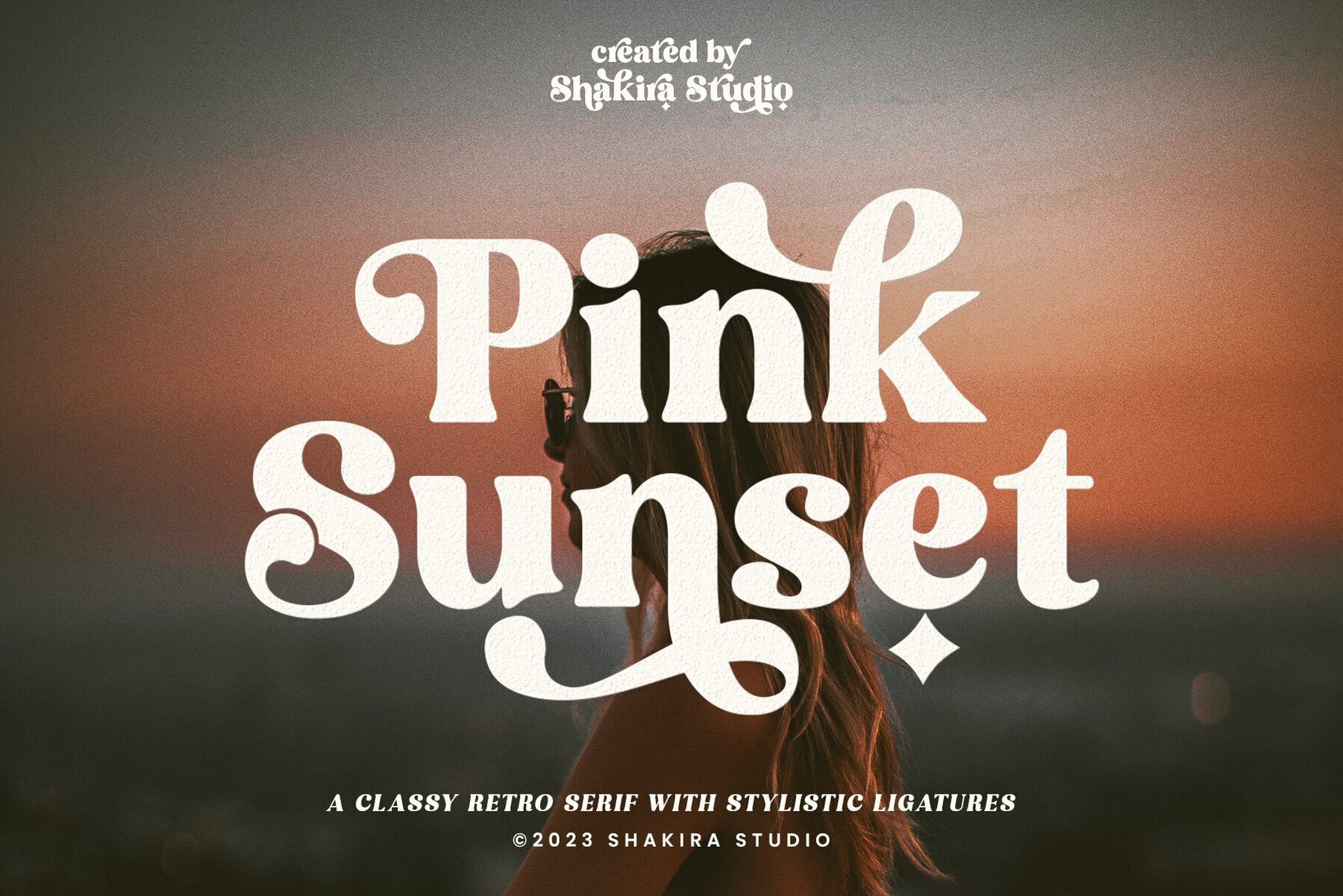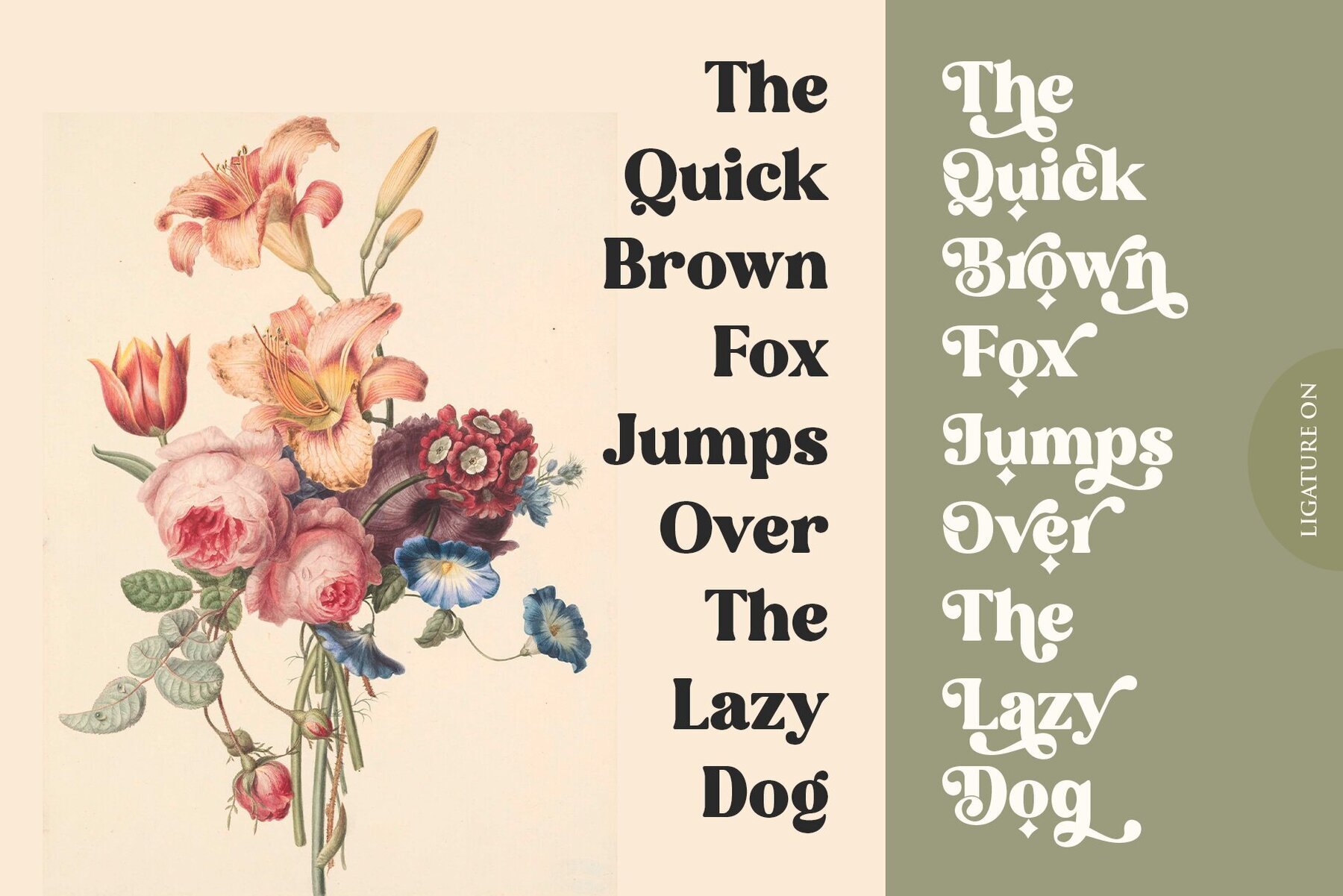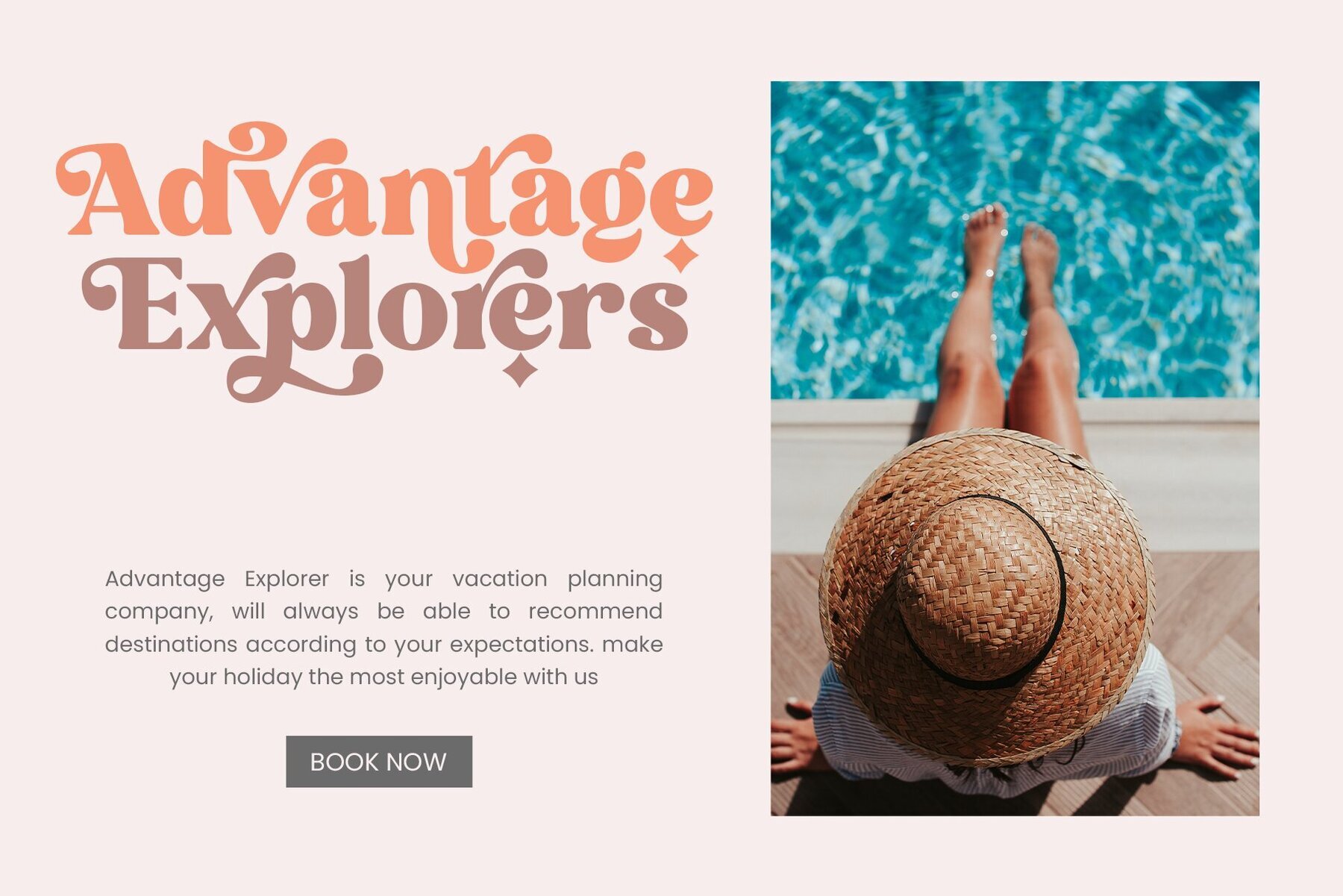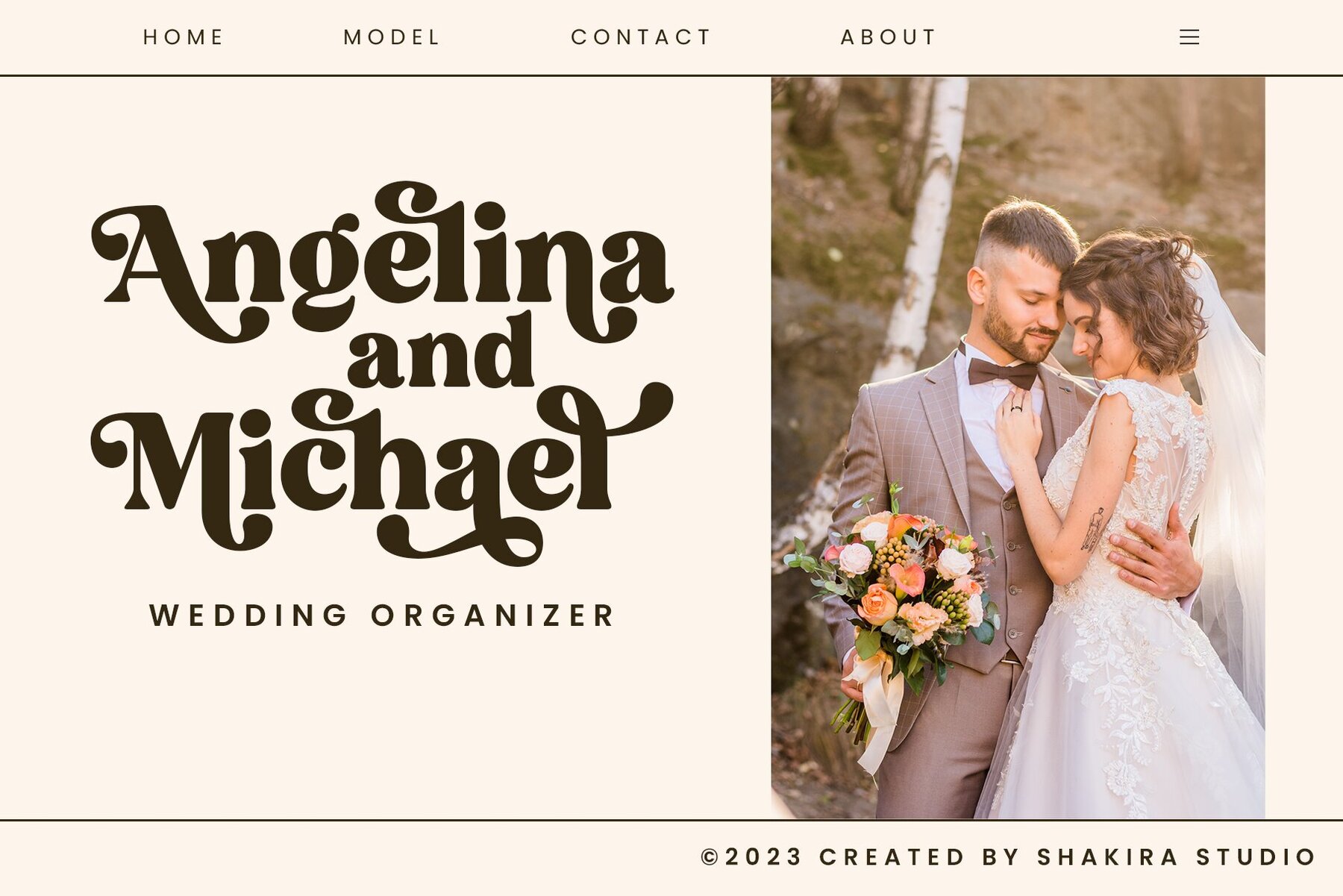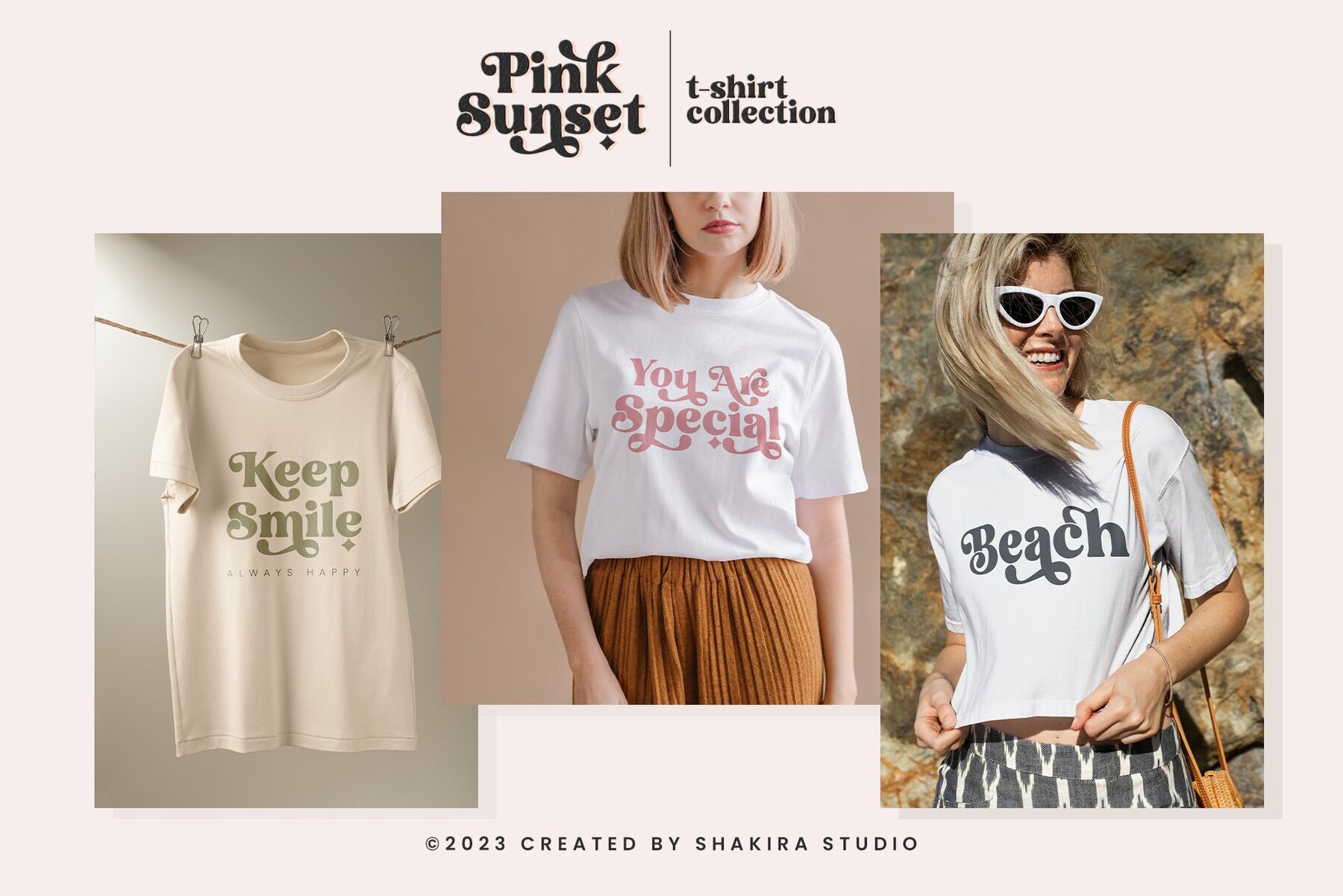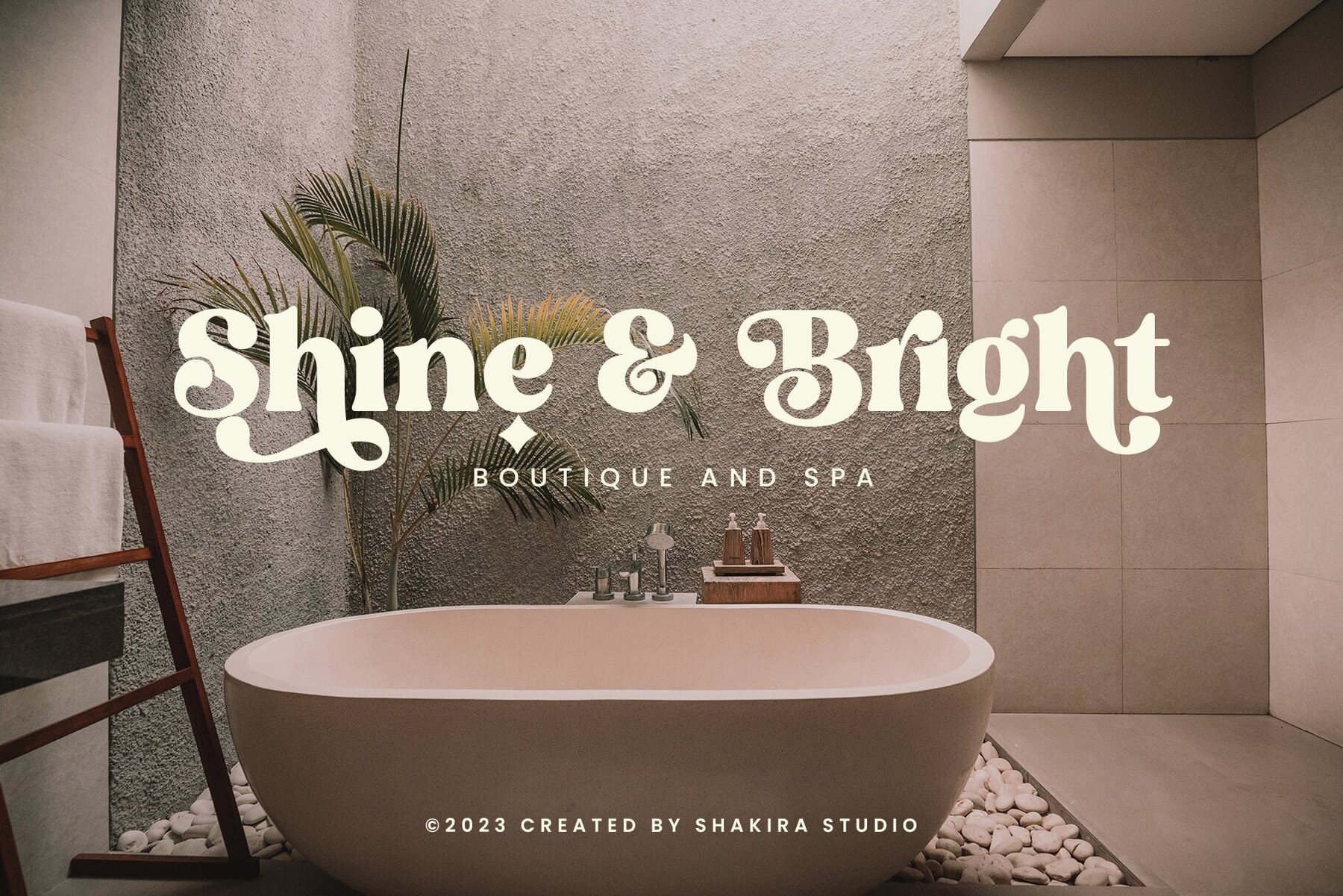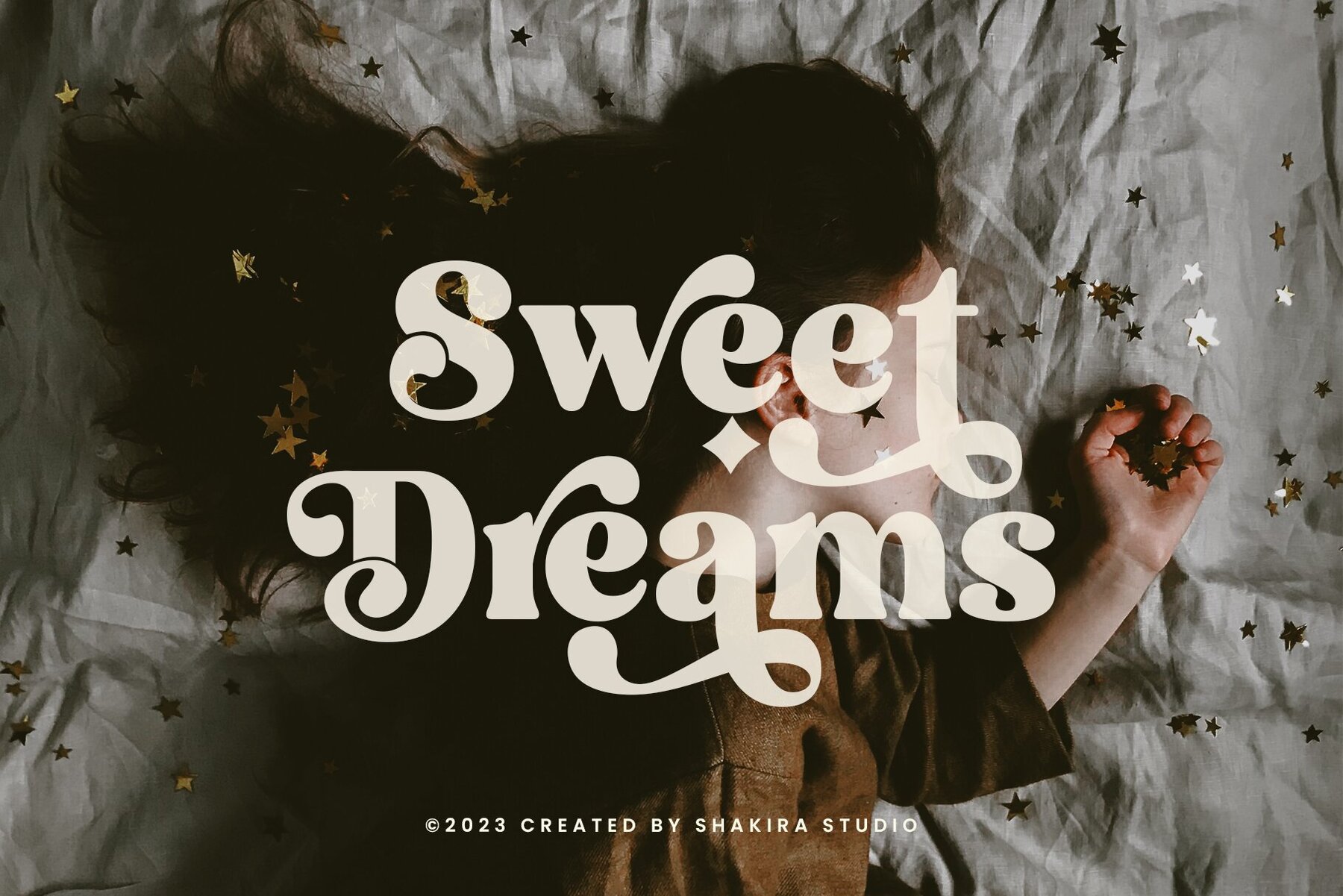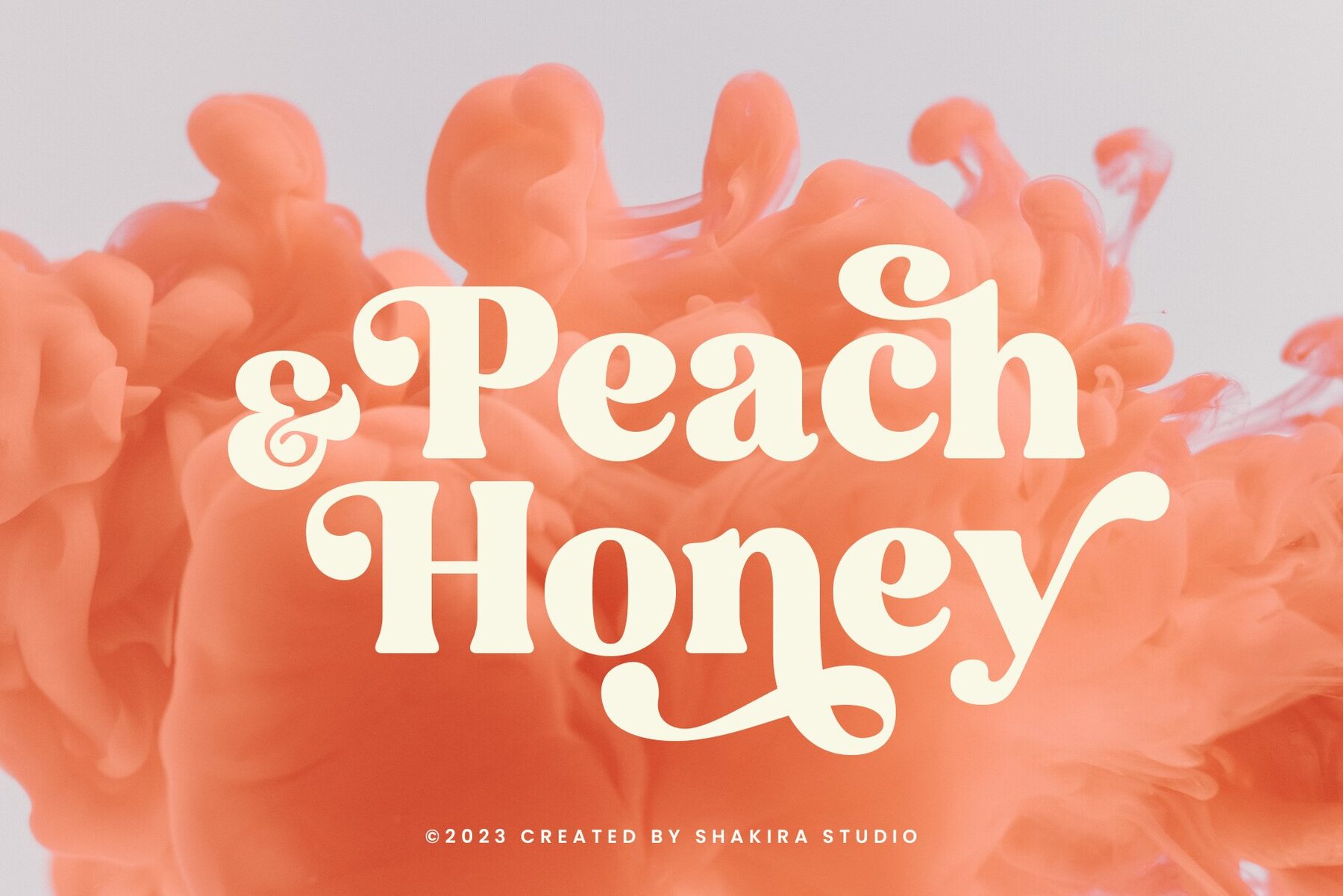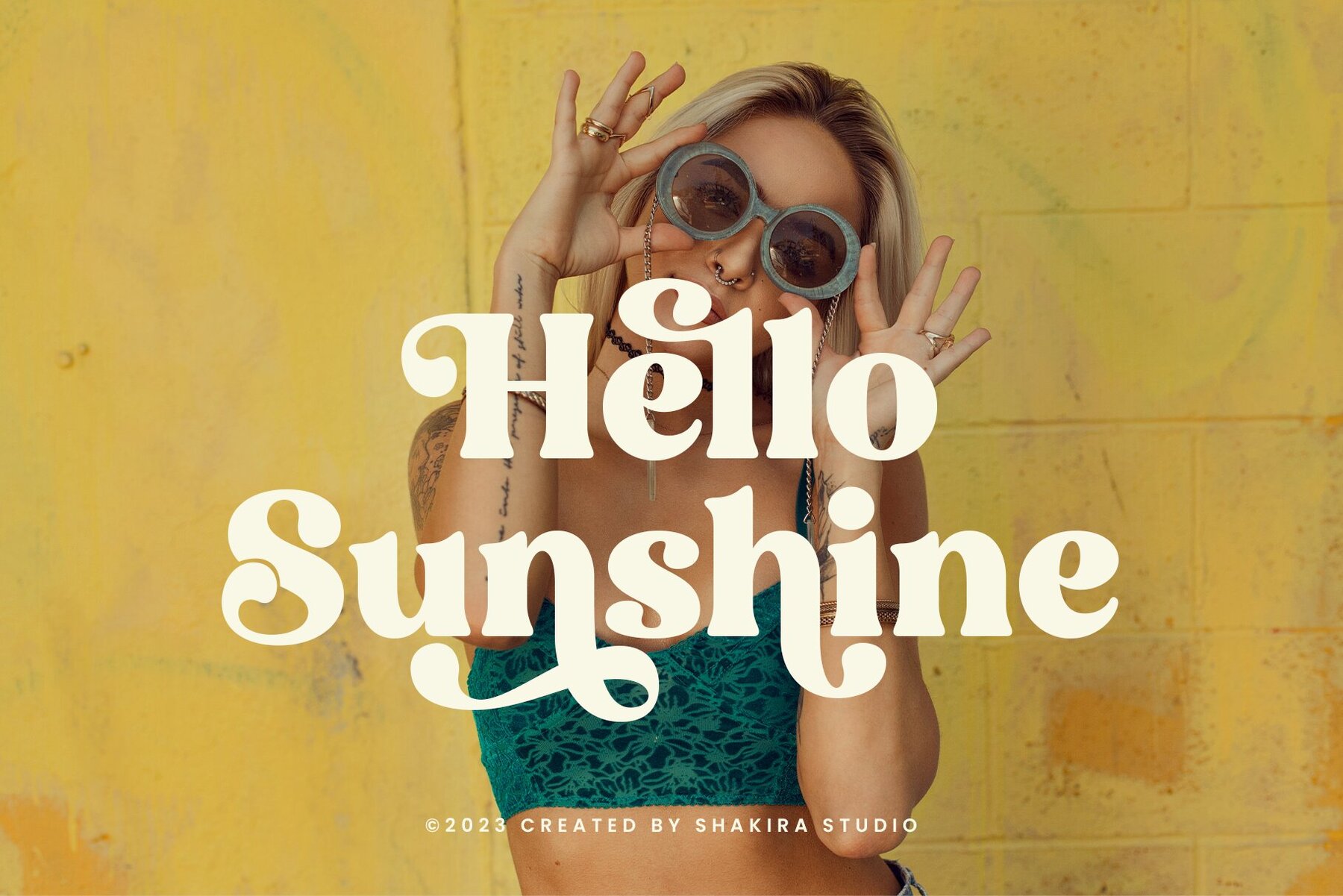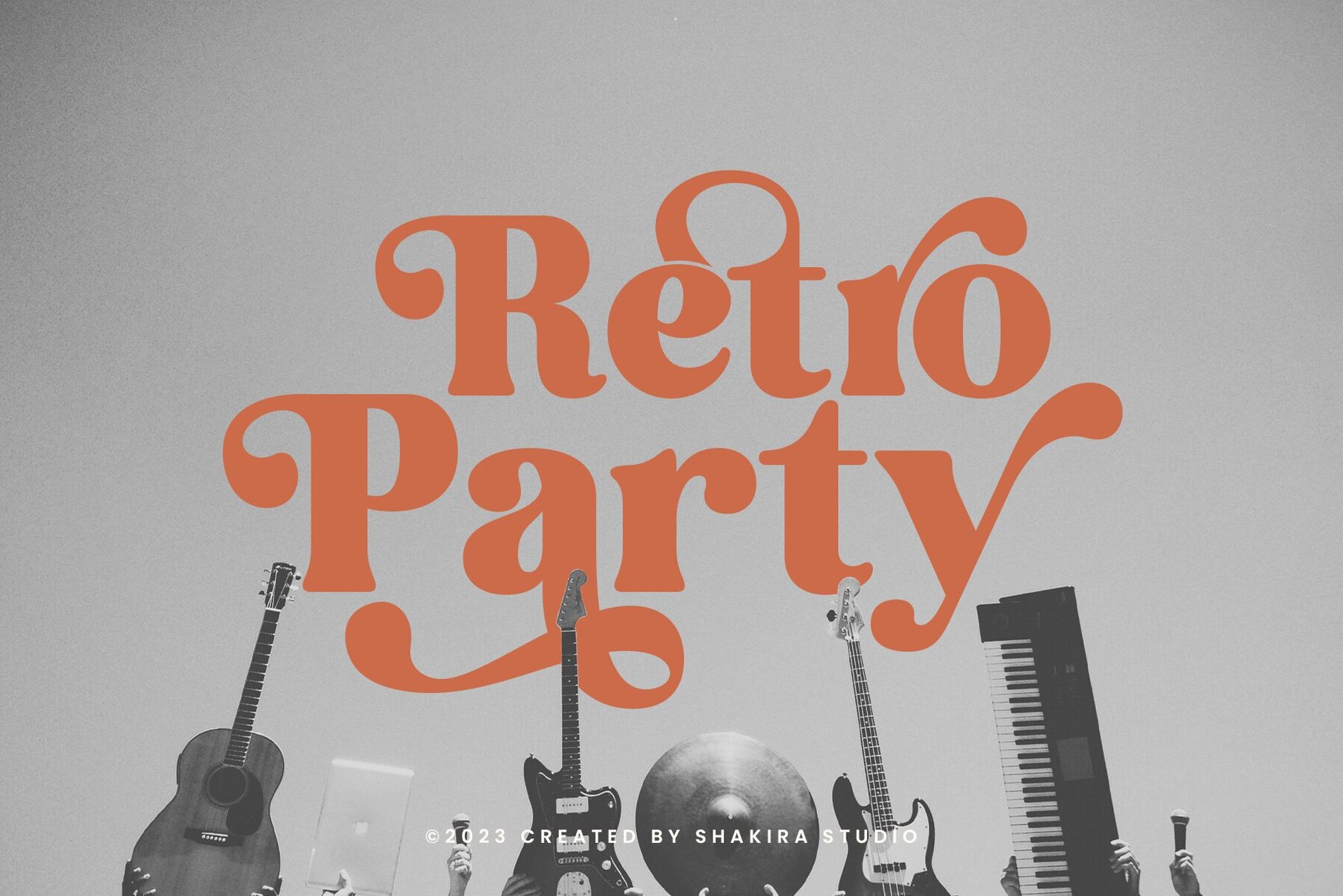
Pink Sunset Font
Pink Sunset by Shakira Studio is a stylish font that blends modern and retro aesthetics. Its clear and fun design makes it ideal for projects inspired by the 60s or 70s, helping to create unique layouts. Add Pink Sunset to your font collection for a distinct style that merges the best of modern and retro design.Pink Sunset: A Blend of Modern and Retro Styles